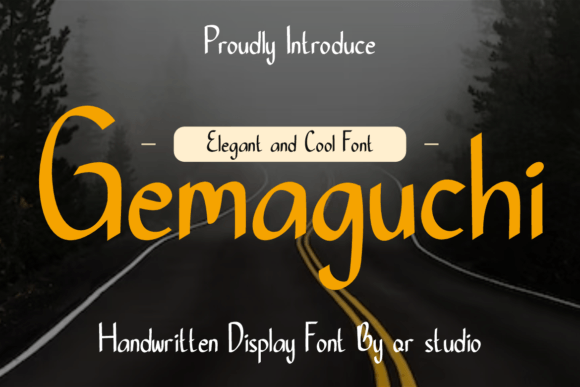
Behold Gemaguchi Font - An Exclusive Script Font Family Awaiting Your Creative Embrace!
Embark on a typographic adventure like never before with Gemaguchi, our captivating script font family. Designed by the visionary qrdesignstd, Gemaguchi is a bold and authentic display font that ignites creativity and commands attention in a plethora of projects.
Unleash the Power of Gemaguchi for Branding Excellence:
With Gemaguchi at your disposal, elevate your branding initiatives to new heights. Create logos that exude strength and individuality, sports-themed designs that ignite passion and energy, and visual masterpieces that leave a lasting impression, all with the transformative power of Gemaguchi.
A Font For All Occasions
Gemaguchi effortlessly adapts to a myriad of contexts, transcending boundaries and genres. Whether you seek to craft posters that captivate, brochures that inform, or social media designs that engage, Gemaguchi rises to the occasion, delivering outstanding results that leave your audience in awe.
Immerse yourself in the limitless potential of Gemaguchi and watch your creative dreams take flight!